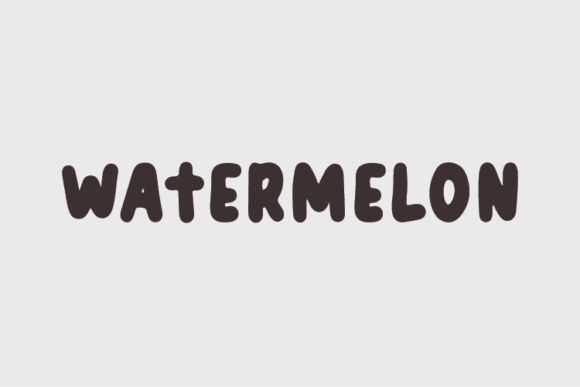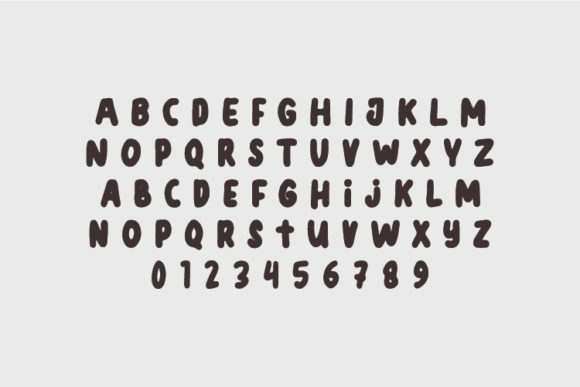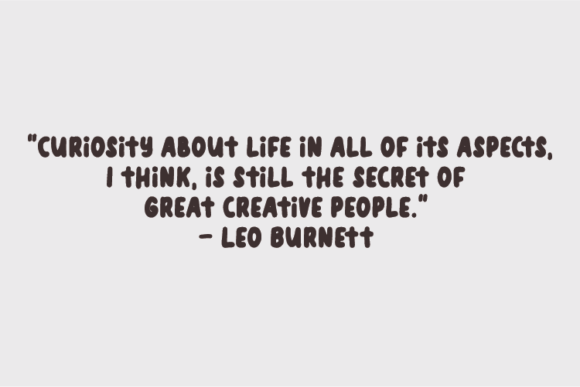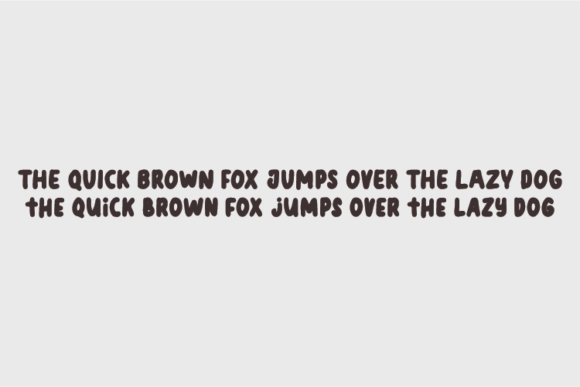
Watermelon Font
About Watermelon Font
Watermelon is a cute and simple lettered handwritten font that can be used for all chalkboard quotes or teaching material! Its authentic look will add a personal and realistic feel to your designs.